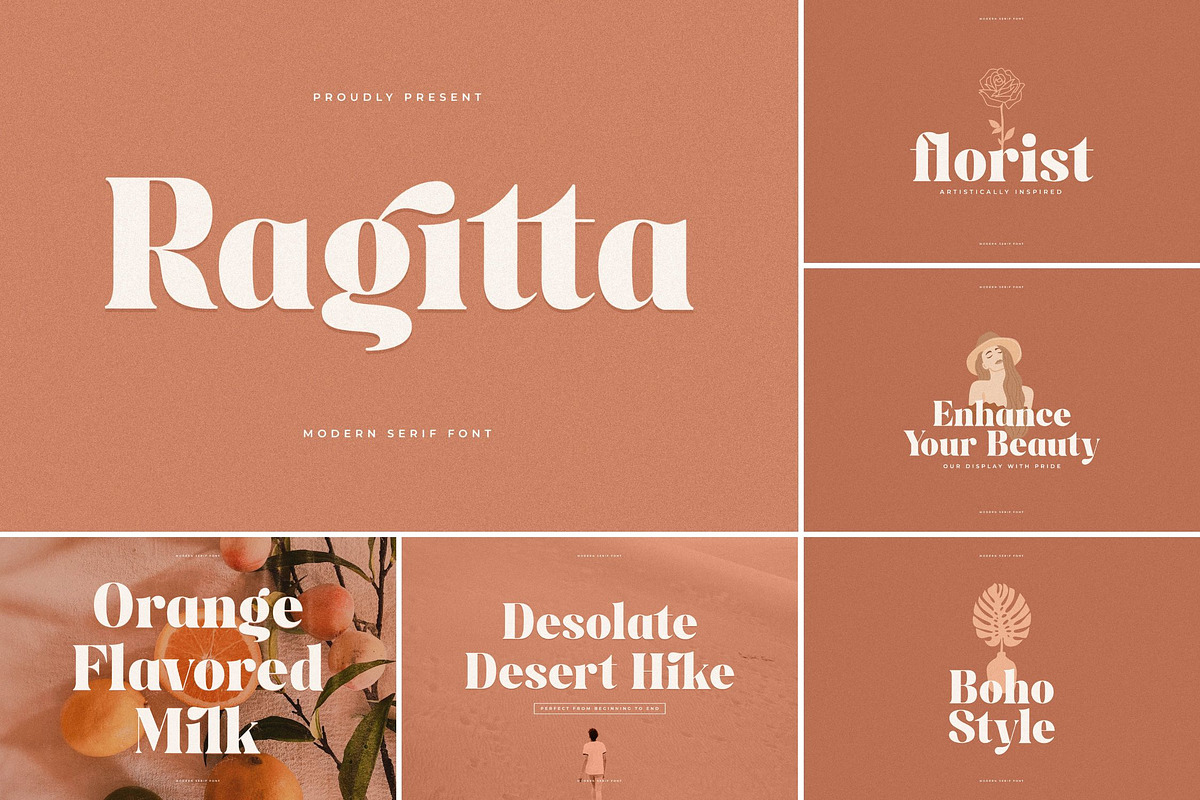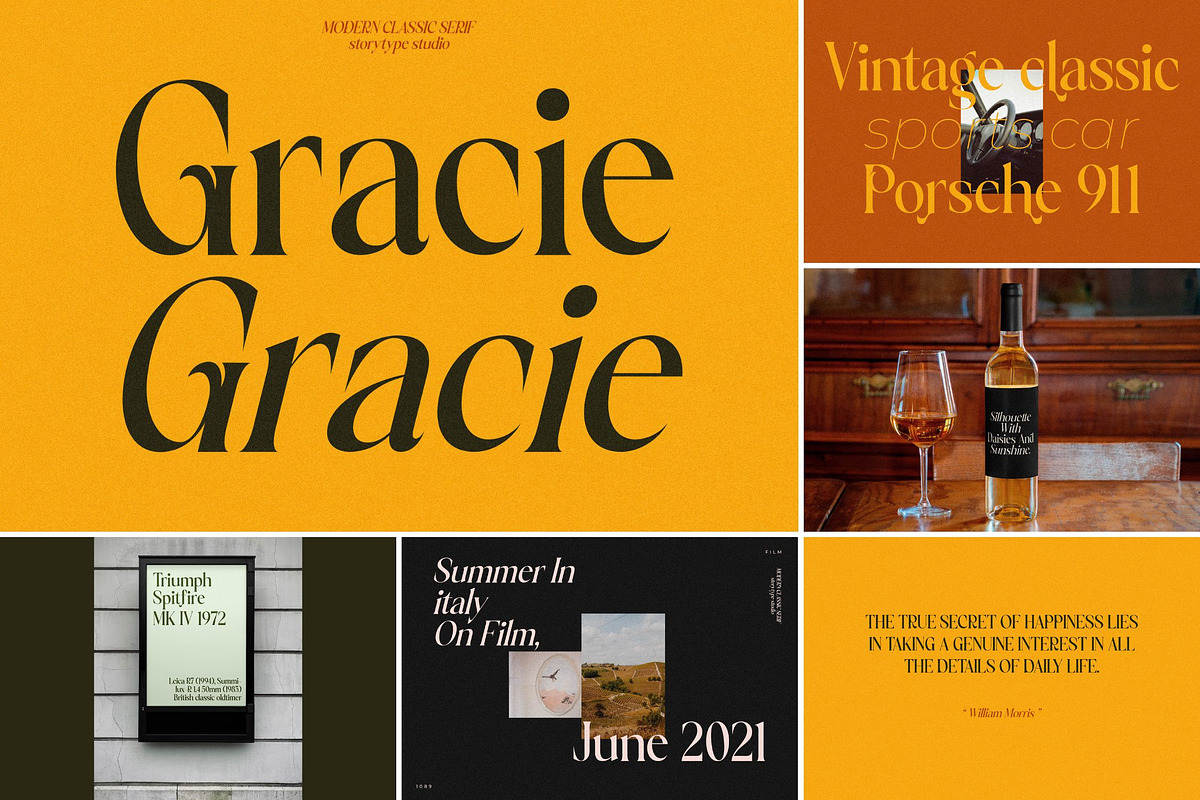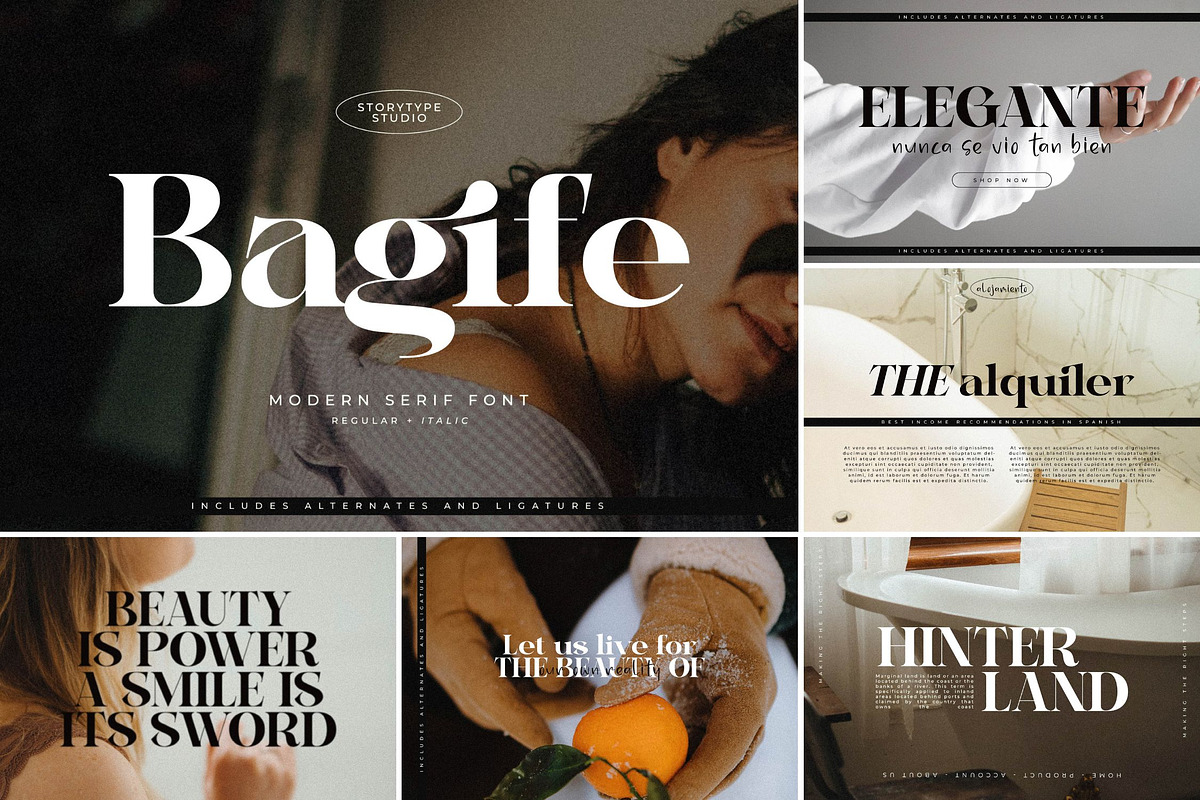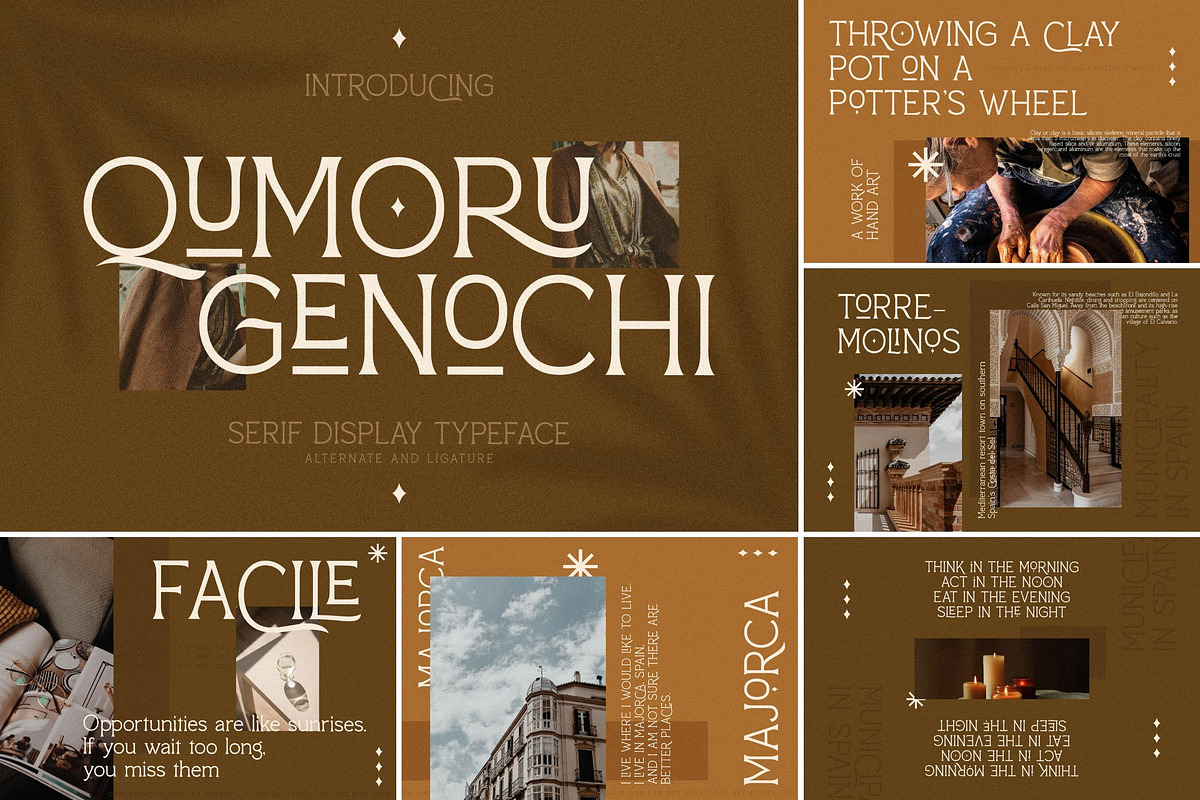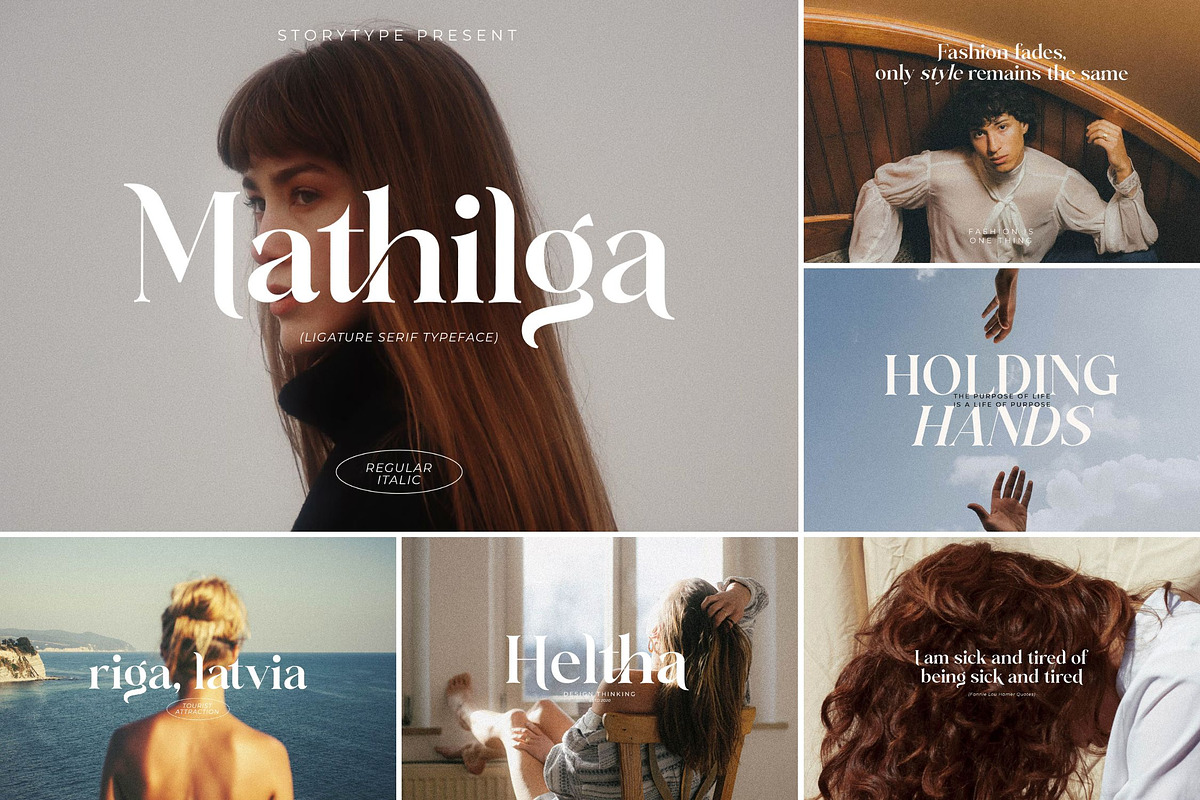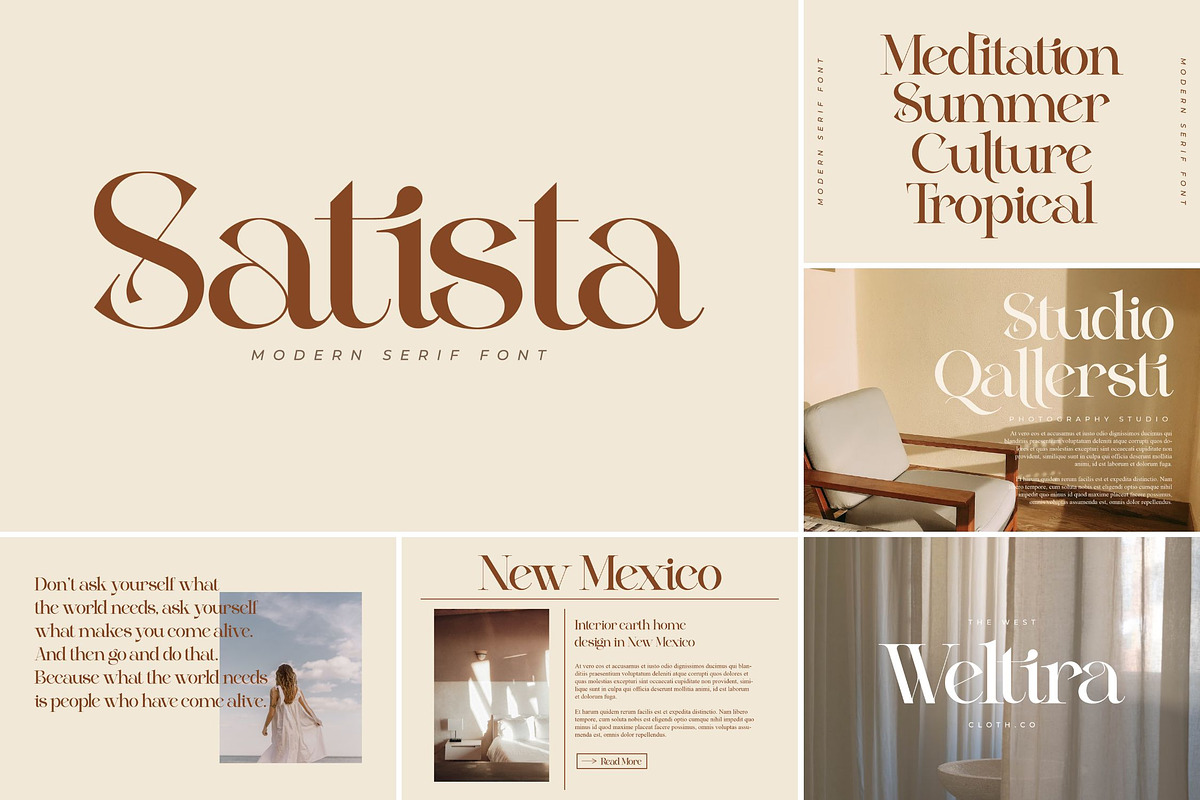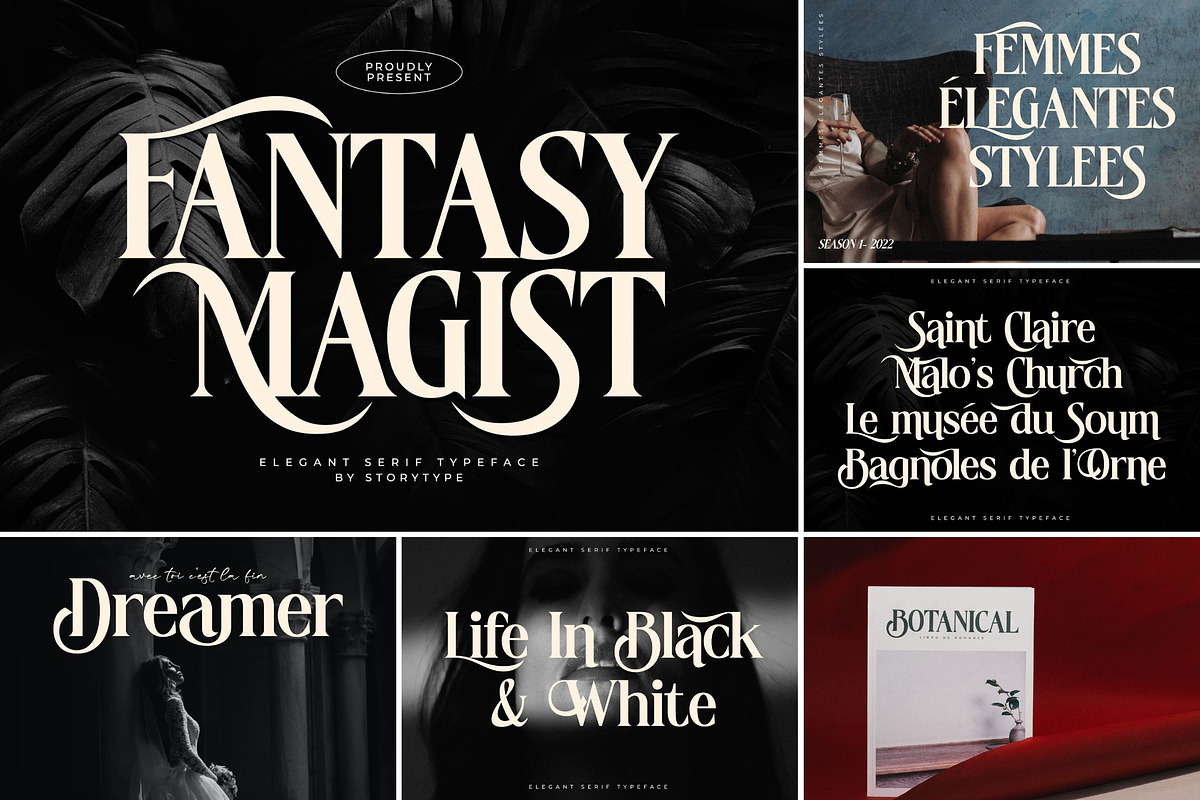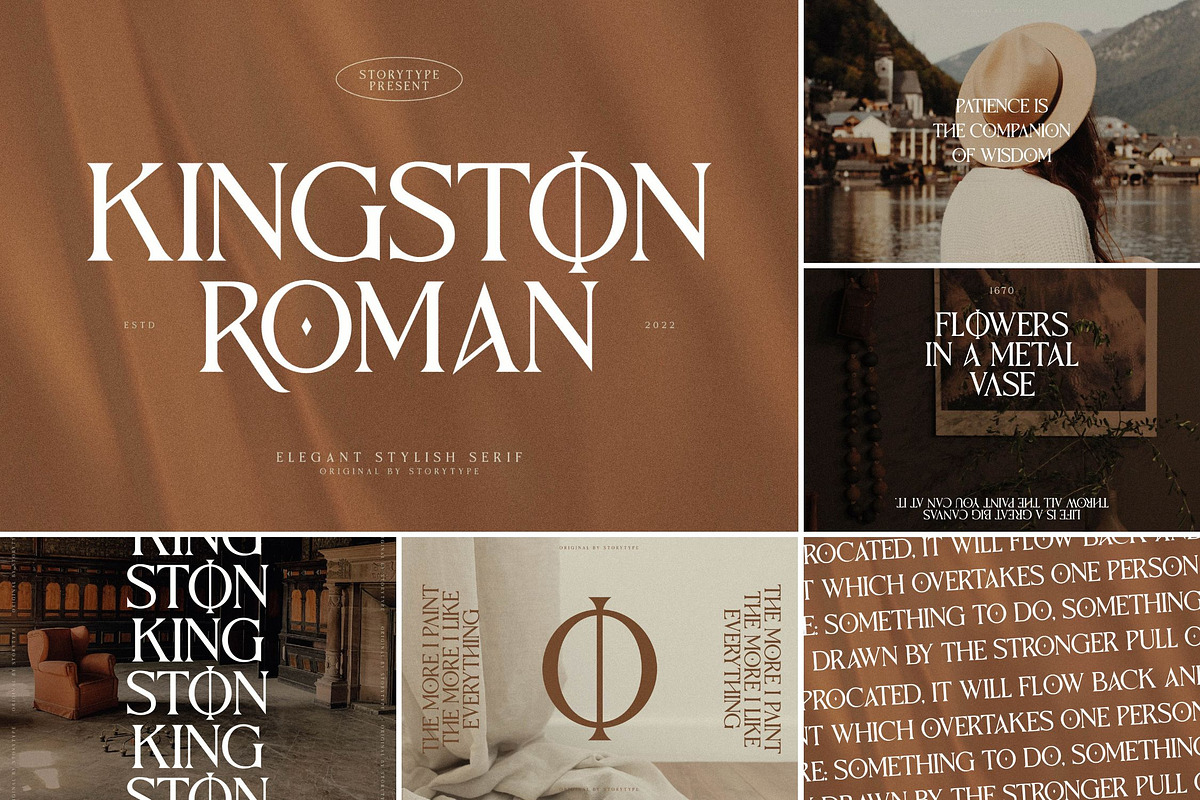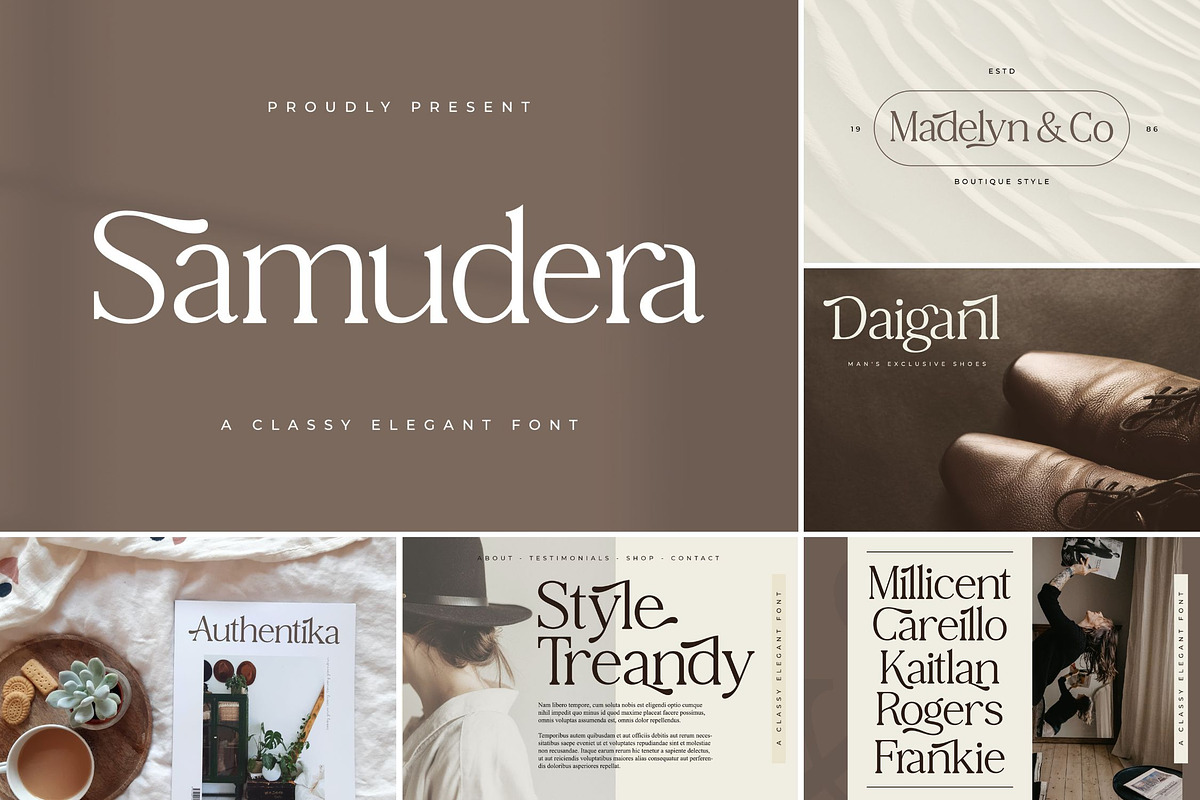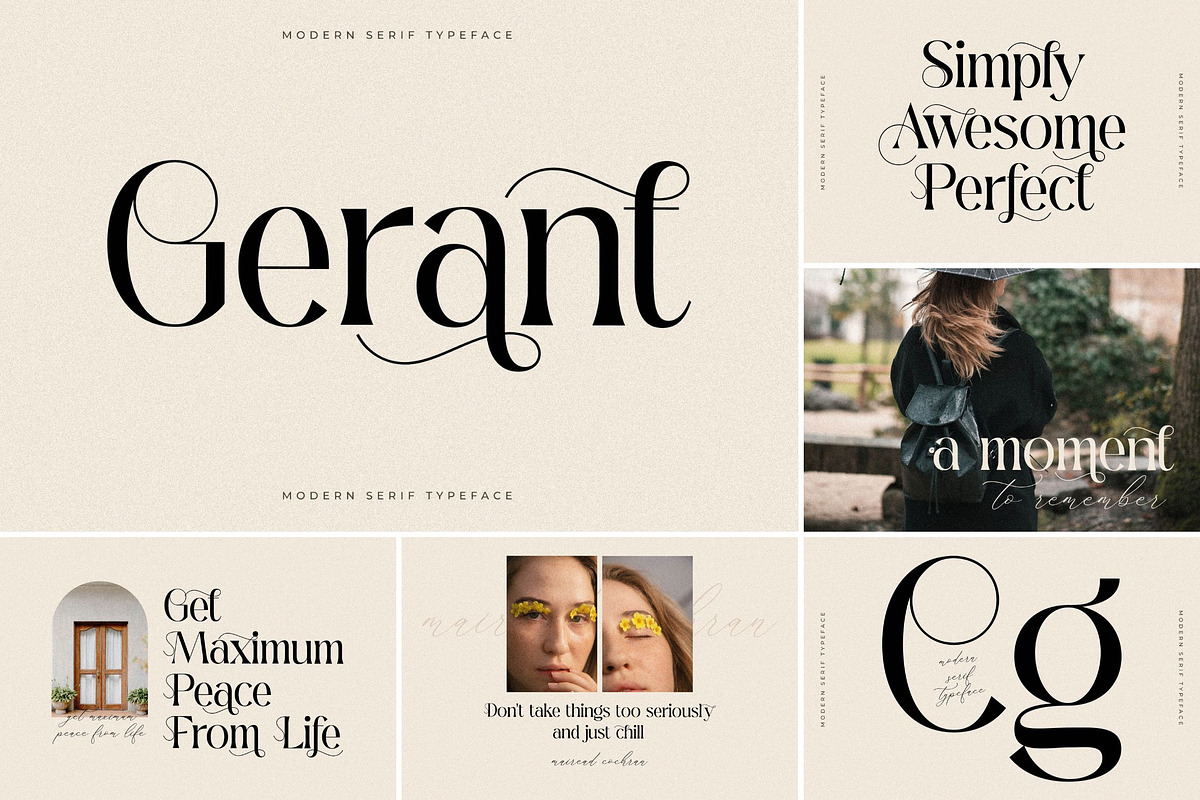
SALE! Modern & Elegant Serif Font
Proudly present Modern & Elegant Serif Font Bundle. Created by Storytype Studio Partnership With Letterena Studios.